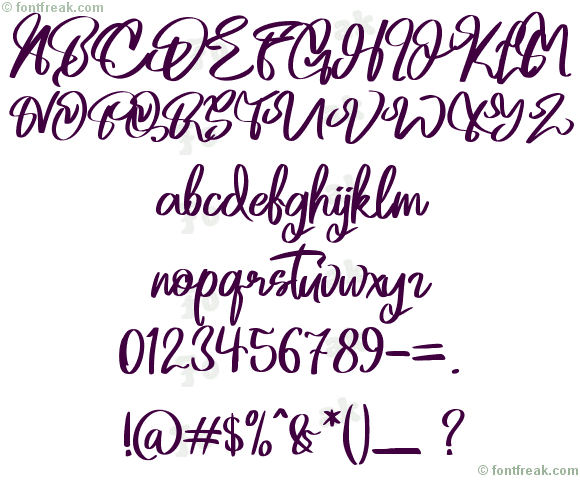
The Englands
About The Englands
The Englands, designed by Burhan Afif, is a stunning script font that effortlessly blends elegance and sophistication. This freeware typeface features smooth, flowing letterforms that embody a modern yet timeless aesthetic. The cursive style is characterized by its varying stroke weights, offering a graceful contrast that enhances readability while maintaining a touch of artistic flair. The letters exhibit generous spacing, allowing each character to breathe, which is particularly appealing in both print and digital formats. Decorative elements, such as elegant swashes and ligatures, add a unique charm, making The Englands a standout choice for various design projects.
This versatile font is perfect for a range of applications, including wedding invitations, where its romantic flair can beautifully convey heartfelt sentiments. It's also ideal for branding and logo design, especially for businesses in the creative sector, such as boutiques, cafes, or artisanal shops. The Englands can elevate restaurant menus, giving them a refined touch that invites patrons to indulge. Additionally, this font is suitable for event flyers and promotional materials, where its distinctive style captures attention and creates a memorable impression.
Targeted toward graphic designers, small business owners, and content creators, The Englands font provides a unique opportunity to infuse projects with personality and elegance. Its free availability ensures that even those on a budget can access this beautiful typeface without compromise.
What sets The Englands apart is its harmonious balance of artistic expression and functionality. The fluidity of the design, combined with its practical usability, makes it an exceptional choice for anyone looking to enhance their visual communications. With The Englands font free download, you can effortlessly elevate your projects and leave a lasting impression.